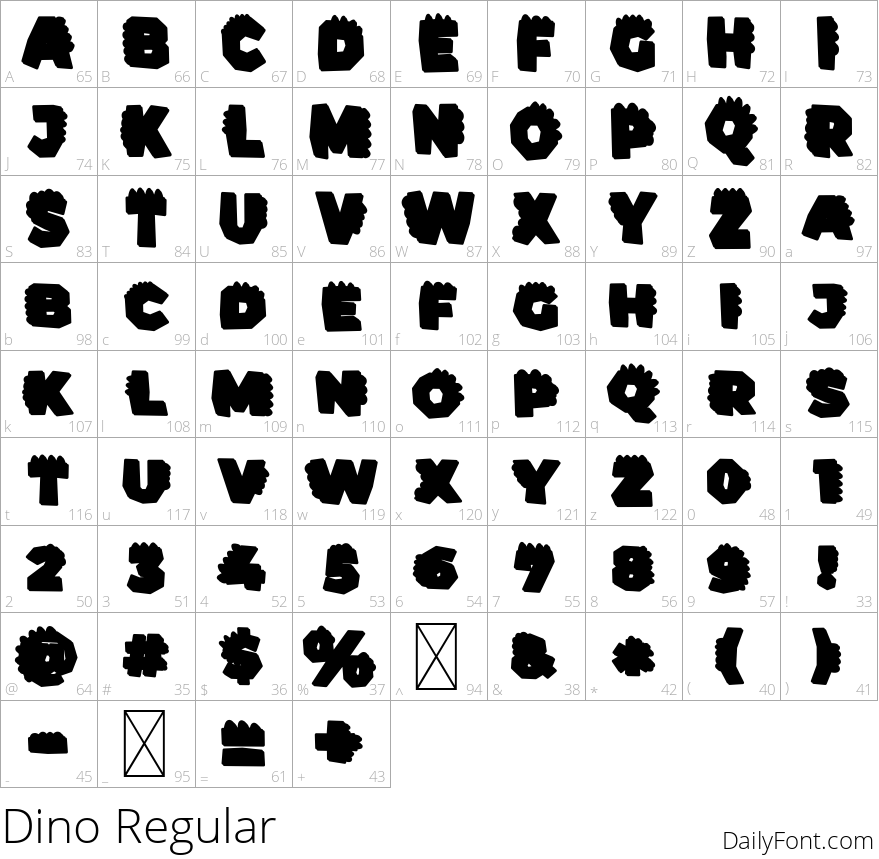
Dino
Introducing Dino, an SVG Color Font that radiates creativity, imagination, and endless fun. If you're in search of a distinctive typeface for your next project, look no further! Dino stands out with its playful typography, making it the ideal choice for designs requiring a pop of color and whimsy.
This font boasts a high level of aesthetic appeal and versatility, making it perfect for a variety of applications. Whether you're crafting book covers that captivate readers, designing eye-catching posters, curating unique packaging, or sprucing up merchandise with a playful touch, Dino can elevate your work to new heights. Logotypes and branding efforts will also benefit from its charming and fun characteristics, attracting attention and engaging your audience. Embrace creativity with Dino and bring your designs to life!